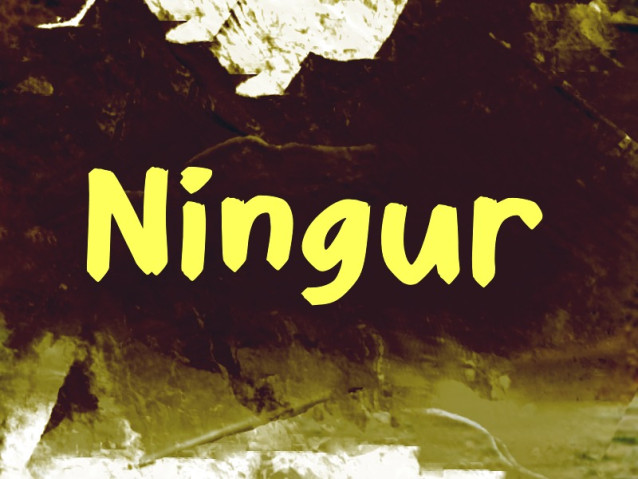
Ningur Font
Ningur Font is a simple and modern display font suitable for quotes, logos, headings, titles, and many more. Use it on any of your creative projects, and your designs will become outstanding!